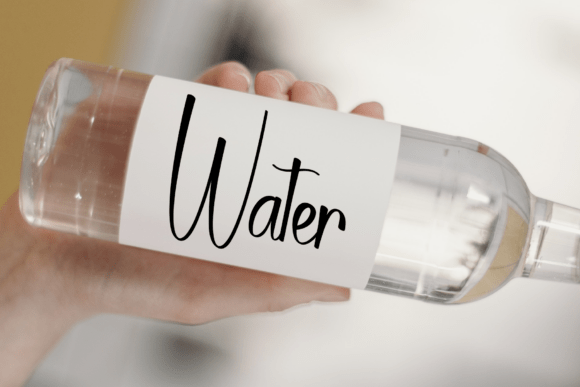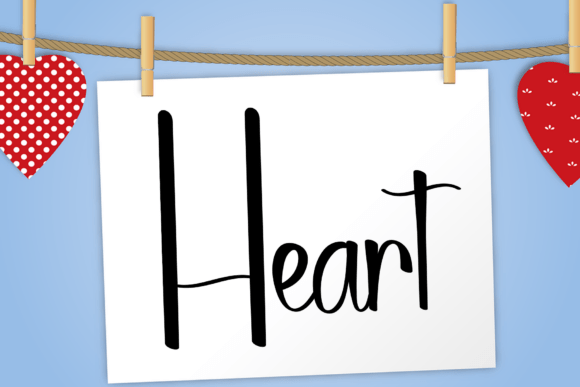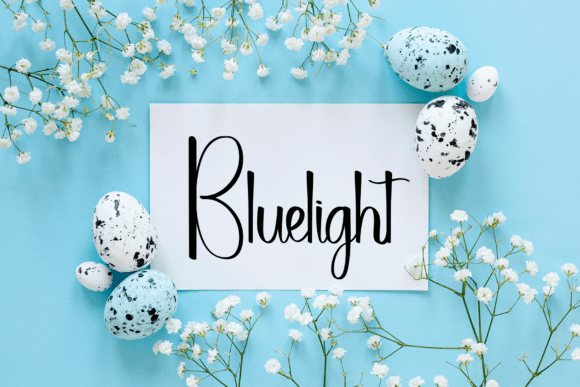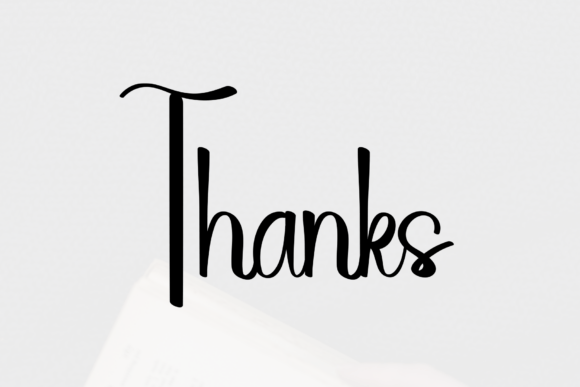
Unlock the Enchantment of Black Magic Font: A Charming Handwritten Delight
In the realm of typography, few fonts manage to capture the essence of warmth and personality as effectively as the Black Magic Font. This charming handwritten font is imbued with a sense of heartfelt perfection, making it an ideal choice for designers and crafters seeking to add a touch of magic to their projects. With its smooth strokes and organic lines, Black Magic Font evokes a relaxed atmosphere, perfect for a variety of design applications.
The Allure of Black Magic Font
Black Magic Font stands out in the world of typography due to its unique blend of elegance and informality. Its handwritten nature gives it a personal and approachable feel, making it suitable for projects where a human touch is desired. The font’s smooth strokes and organic lines contribute to its charm, creating a sense of fluidity and naturalness that is hard to resist.
One of the key advantages of Black Magic Font is its versatility. Whether you’re working on branding materials, invitations, or social media graphics, this font can adapt to any design style. Its relaxed atmosphere makes it particularly well-suited for:
- Branding: Use Black Magic Font to create a memorable and distinctive brand identity that resonates with your audience.
- Invitations: Add a touch of elegance and whimsy to your invitations, making them truly special and eye-catching.
- Social Media Graphics: Elevate your social media presence with eye-catching graphics that showcase the charm of Black Magic Font.
Why Designers and Crafters Love Black Magic Font
Designers and crafters appreciate fonts that can help them create unique and captivating designs. Black Magic Font offers several features that make it a favorite among creative professionals:
- Heartfelt Perfection: The font’s charming and handwritten nature makes it perfect for projects that require a personal touch.
- Relaxed Atmosphere: Black Magic Font’s smooth strokes and organic lines evoke a sense of calmness and serenity, ideal for designs that aim to soothe or inspire.
- Versatility: The font’s adaptability makes it suitable for a wide range of design projects, from formal to informal.
Tips for Using Black Magic Font Effectively
To get the most out of Black Magic Font, consider the following tips:
- Pair with Contrasting Fonts: Combine Black Magic Font with a contrasting font to create visual interest and hierarchy in your design.
- Experiment with Colors: Try different color schemes to find the perfect match for your design and the font’s unique charm.
- Play with Sizes: Use varying font sizes to create emphasis and add depth to your design.
Black Magic Font is a captivating handwritten font that offers a unique blend of charm and versatility. Its smooth strokes and organic lines make it perfect for a variety of design projects, from branding and invitations to social media graphics. With its heartfelt perfection and relaxed atmosphere, Black Magic Font is sure to enchant designers and crafters alike. Unlock the magic of this delightful font and elevate your designs to new heights.
Whether you’re a seasoned designer or a crafty DIY enthusiast, Black Magic Font is an excellent addition to your typographic arsenal. So, dive into the world of Black Magic Font and discover the endless possibilities it has to offer.